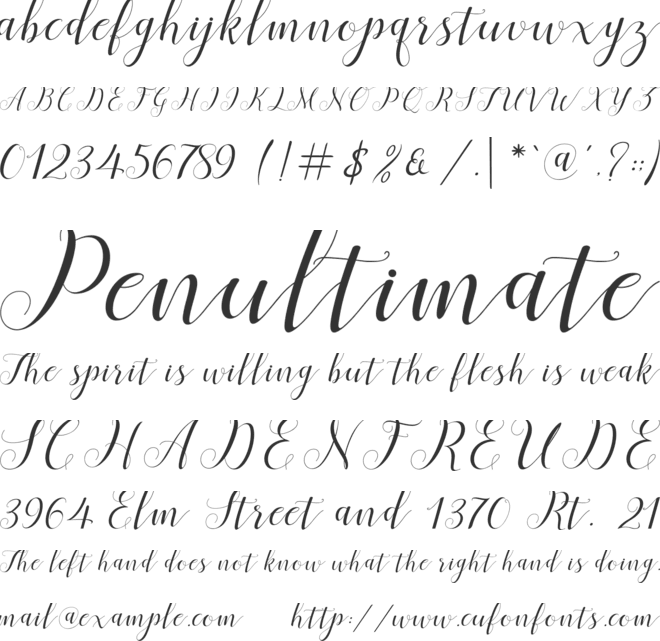
Menttion Script Font
Juni Fadil Putra
Menttion Script a modern calligraphy with very simple, designed to convey elegance and natural style. It is slender, feminine and friendly, let alone sexy. Menttion Script will work perfectly for fashion, e-commerce brands, trend blogs, or any business that wants to appear classy and chic.
Menttion Script font preview